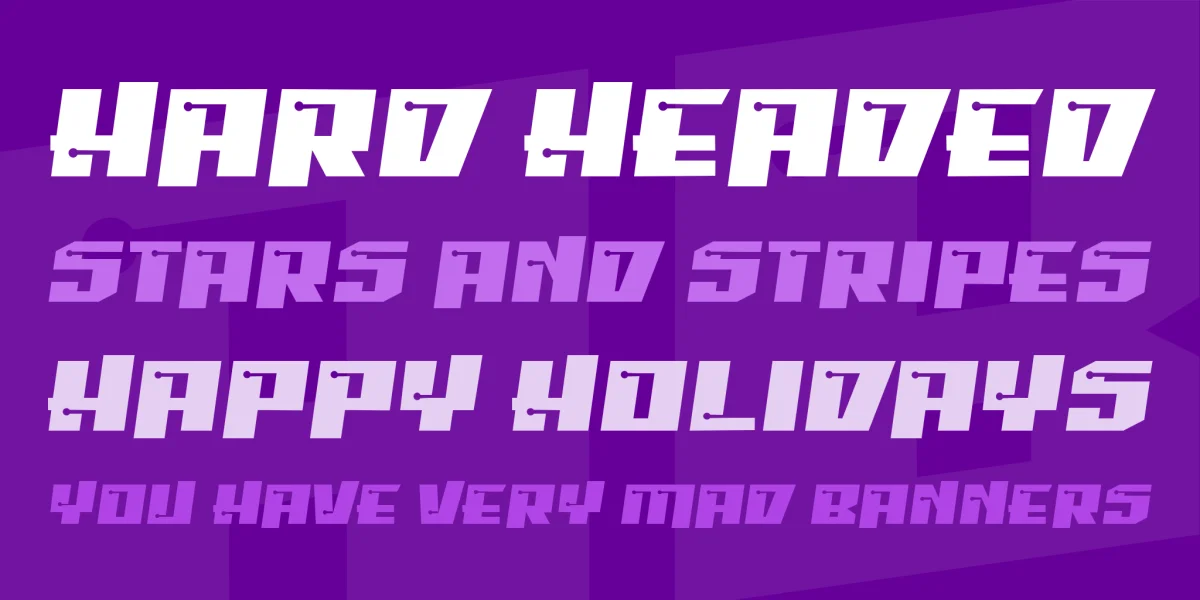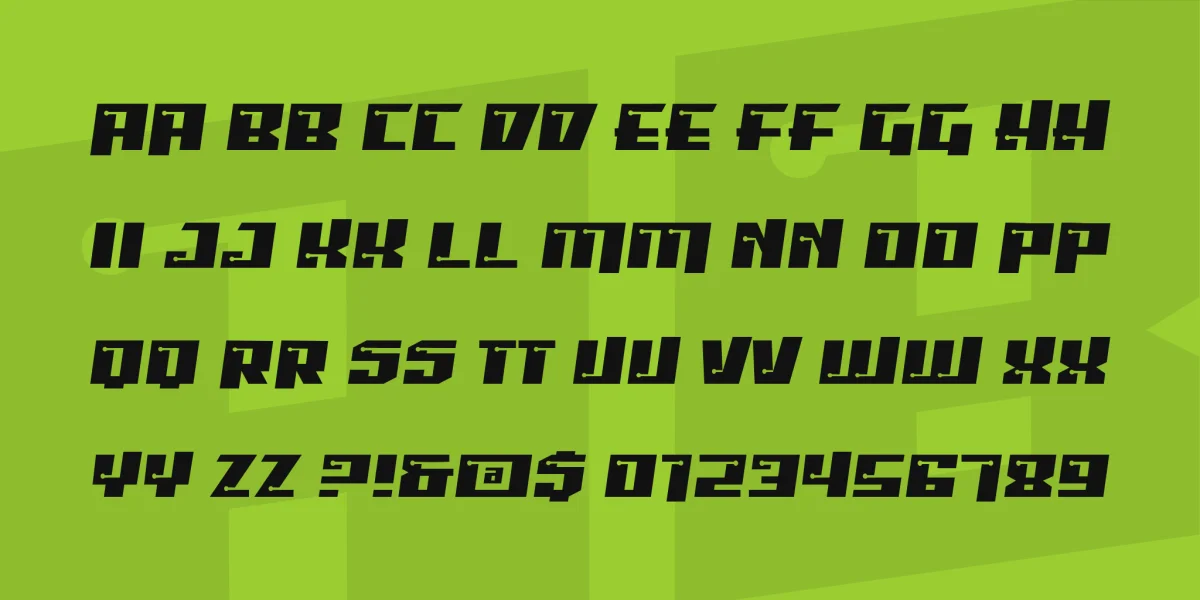
Check out this block-style title font with a science-fiction feel! It’s almost as cool as those telekinetic brain implants you’re asking Santa for this Christmas.